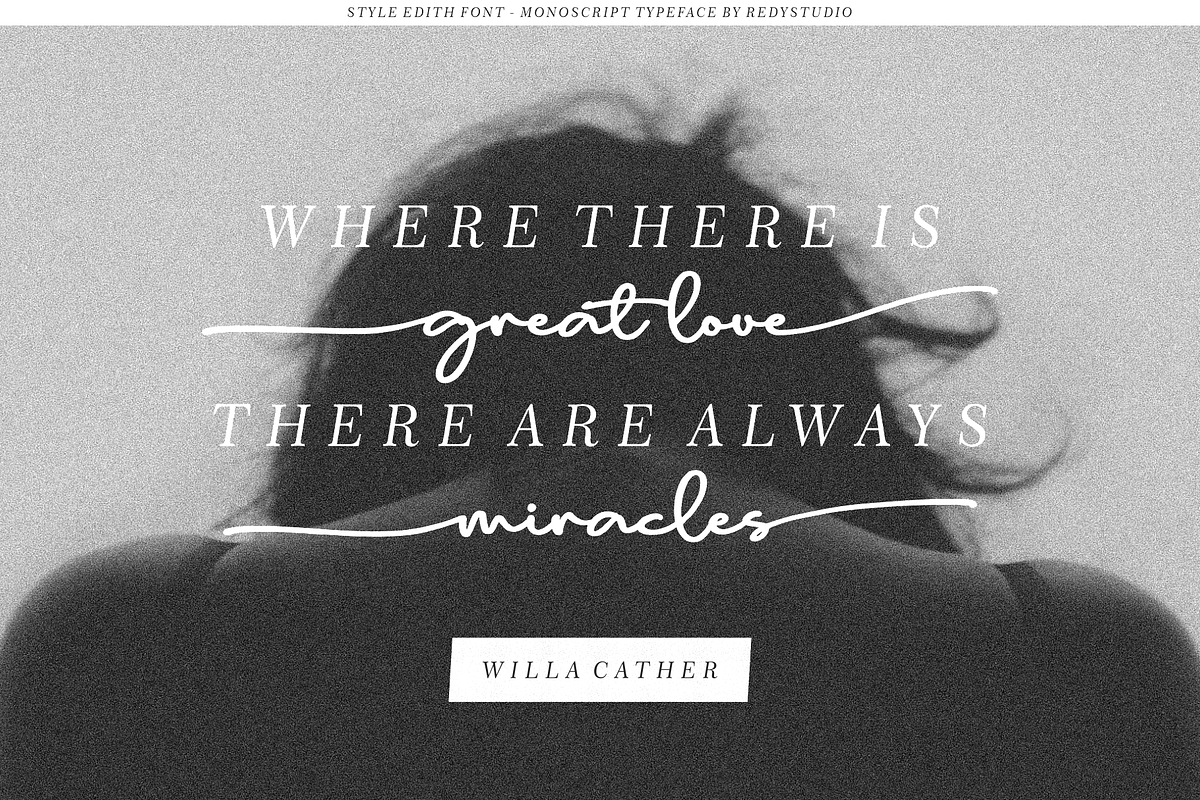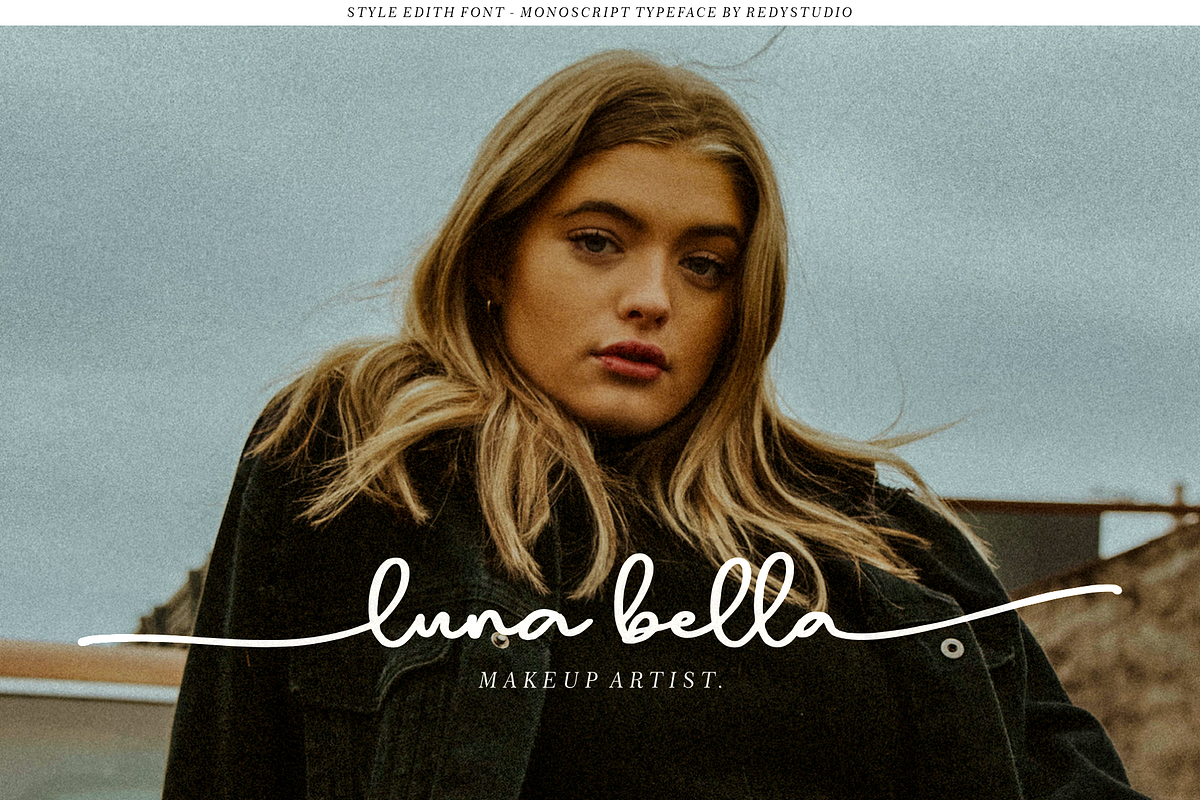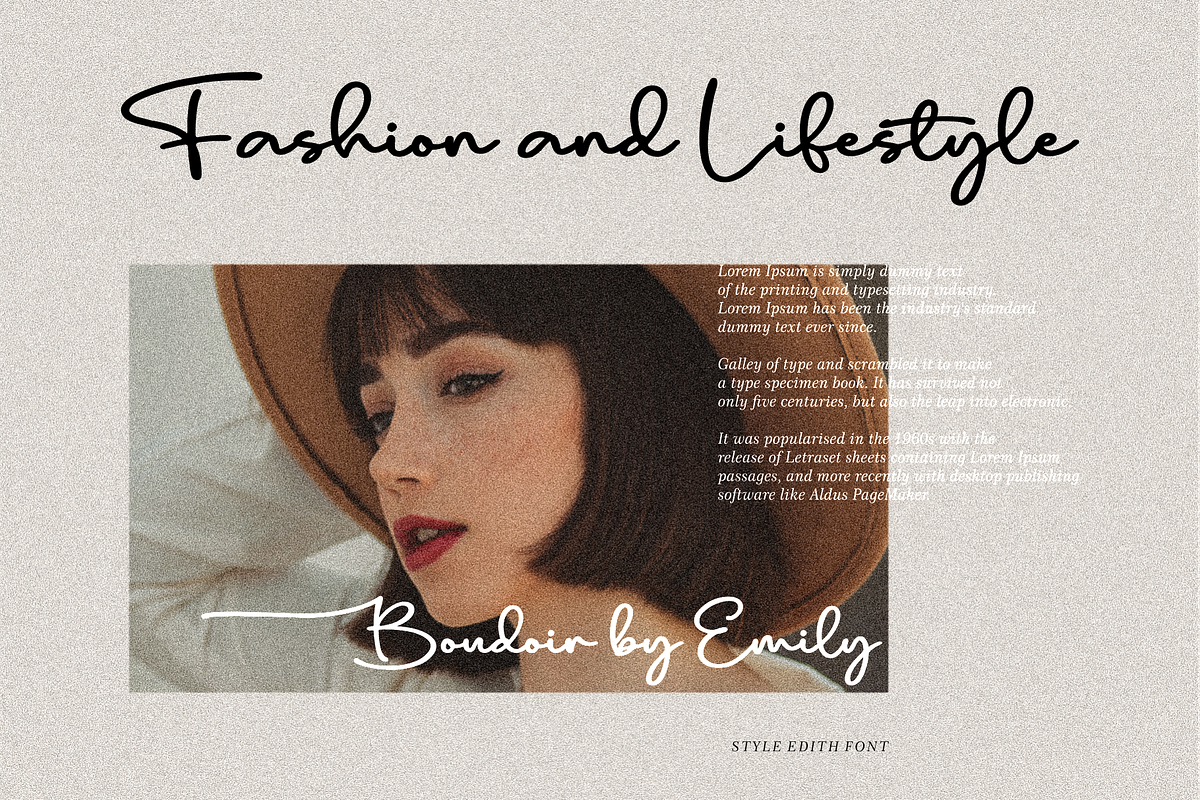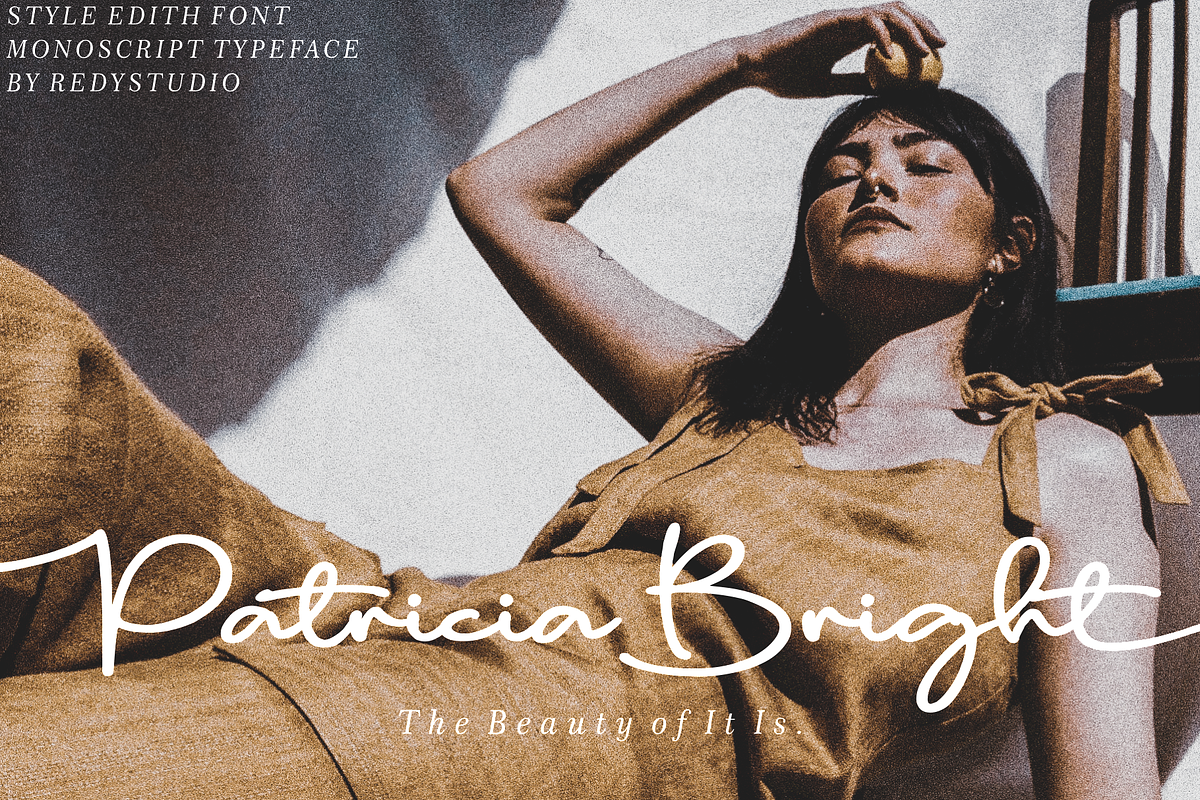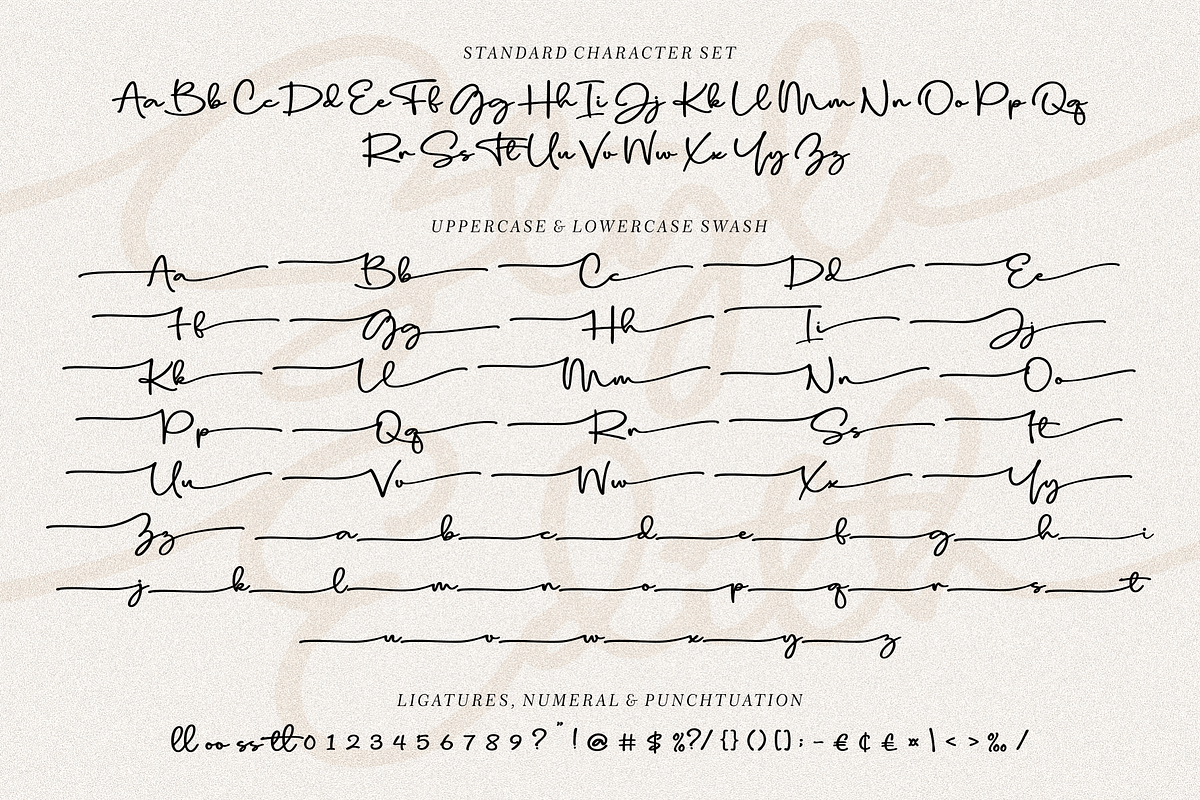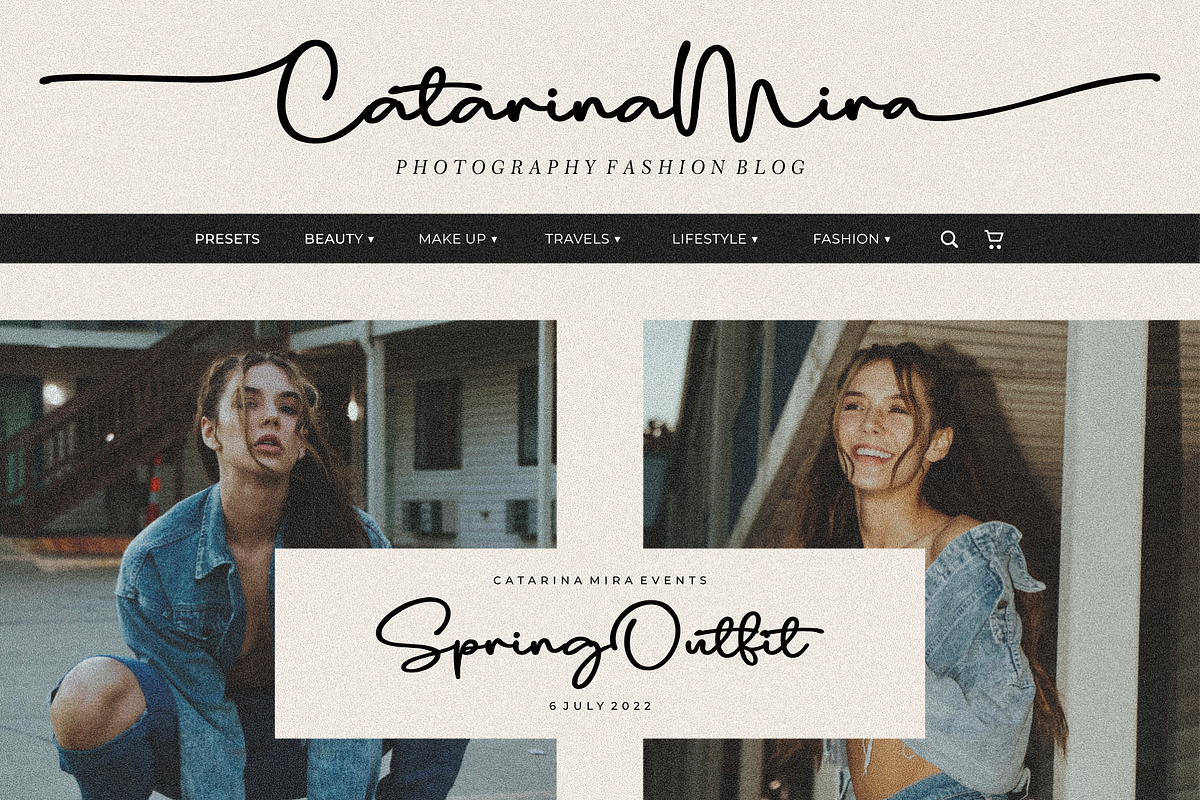
Style Edith – Monoscript Typeface
Style Edith is a hand-drawn mono script typeface. This beautiful font can be used in so many ways (such as titles, logos, product packaging, branding projects, social media, wedding, and many other types of designs). It comes with a beginning and ending swash, along with multilingual support. We recommend using a program that supports OpenType features and glyphs panel like many Adobe apps and Corel Draw for seeing all glyphs.